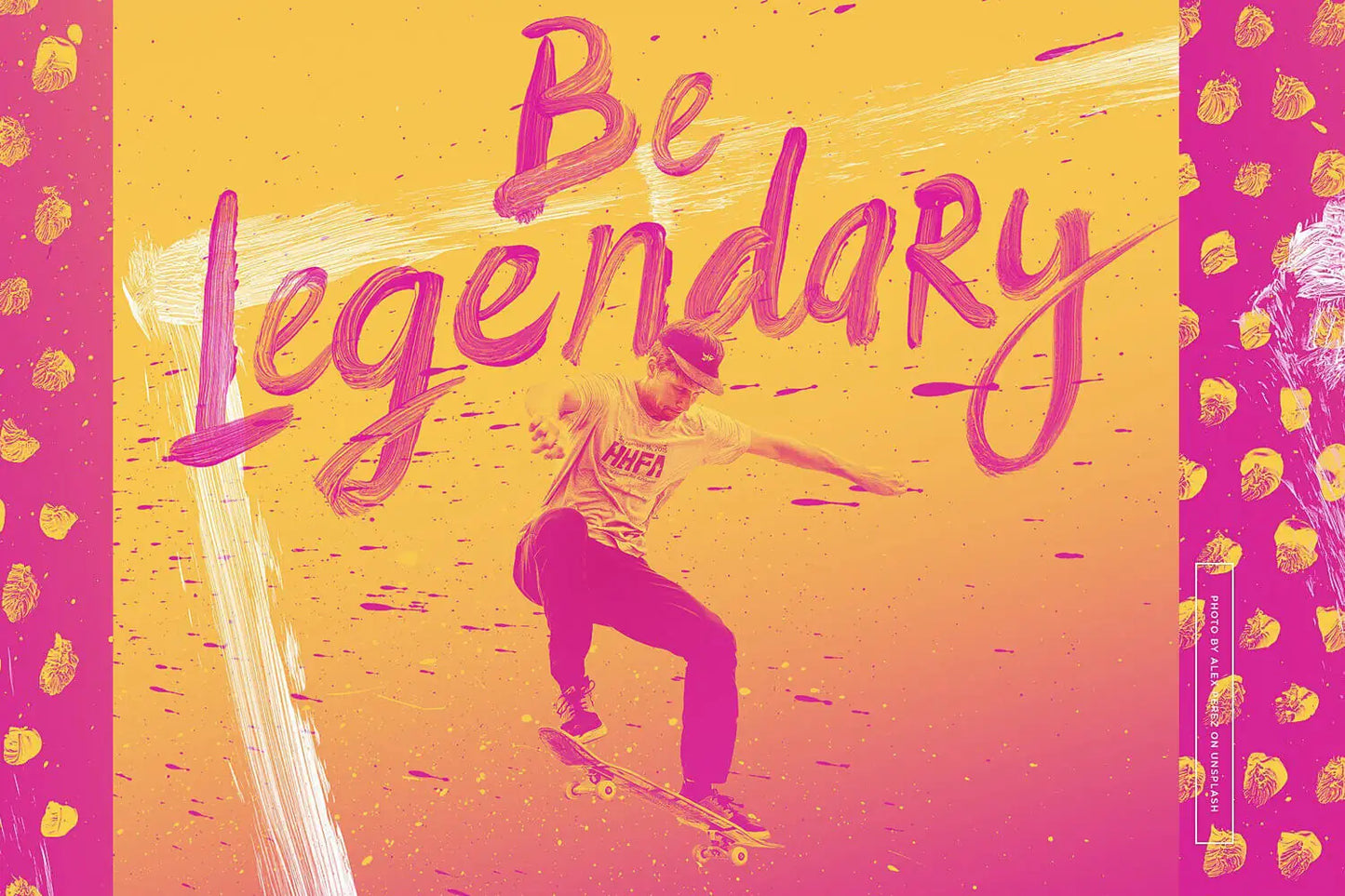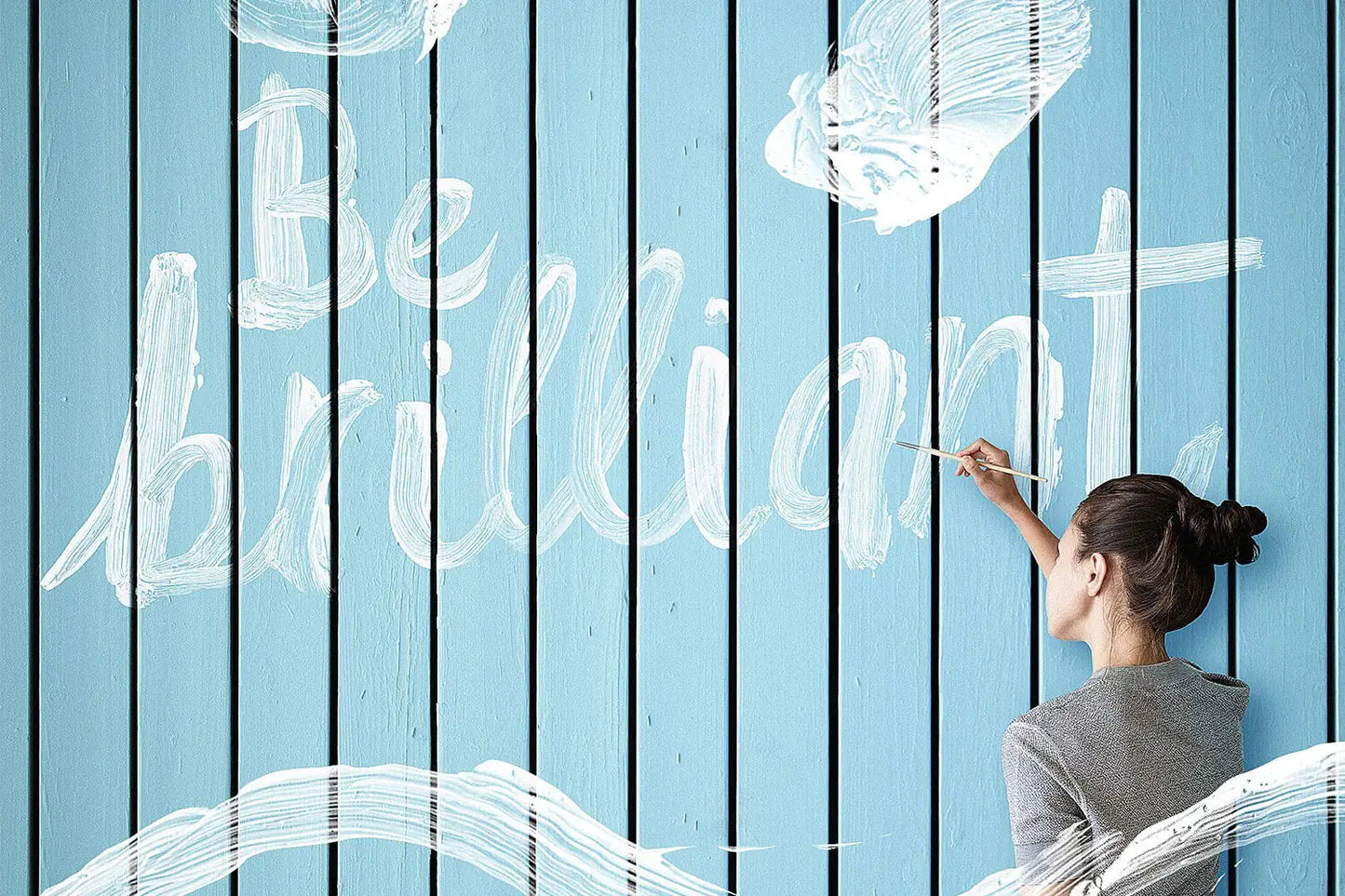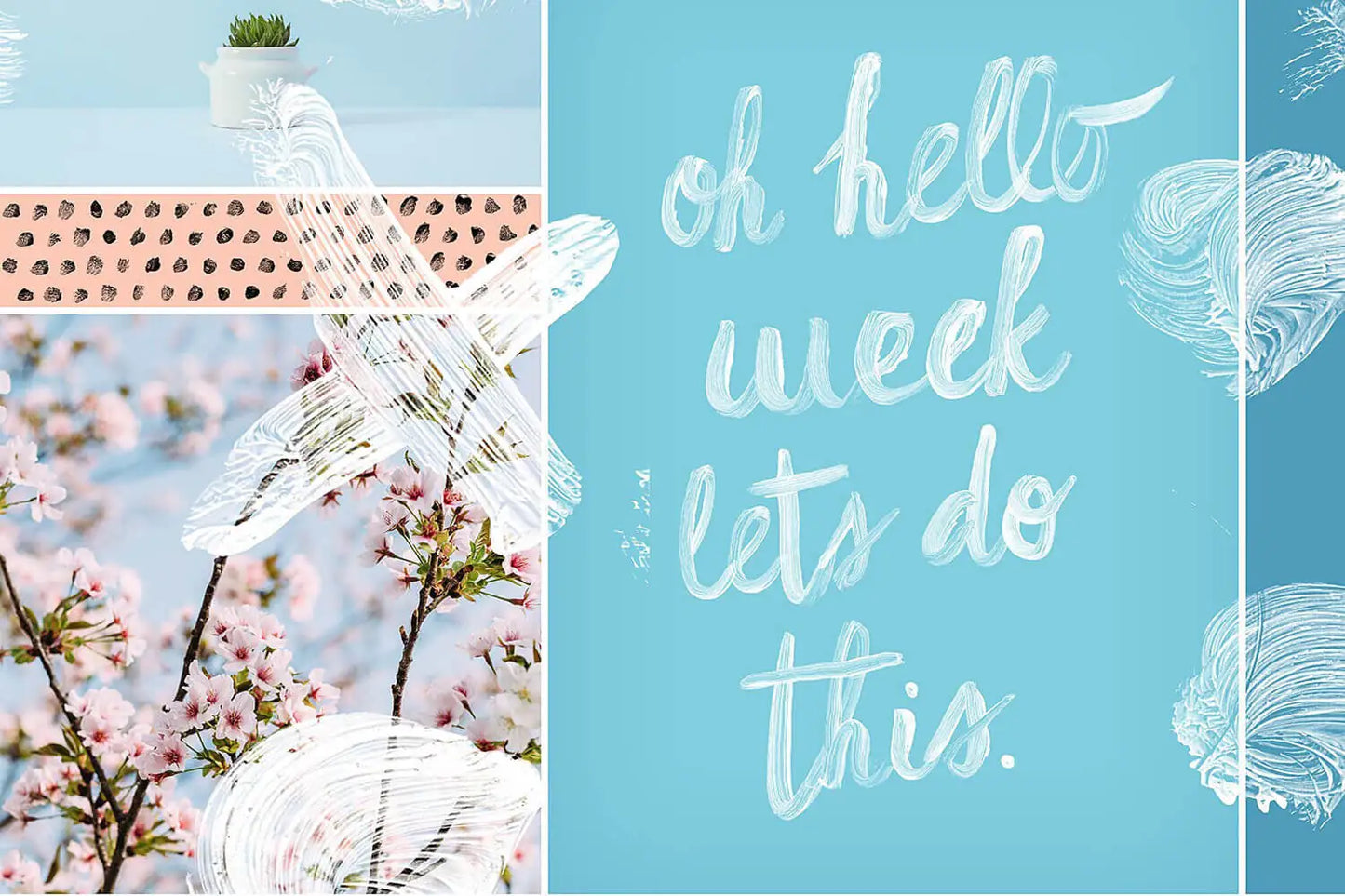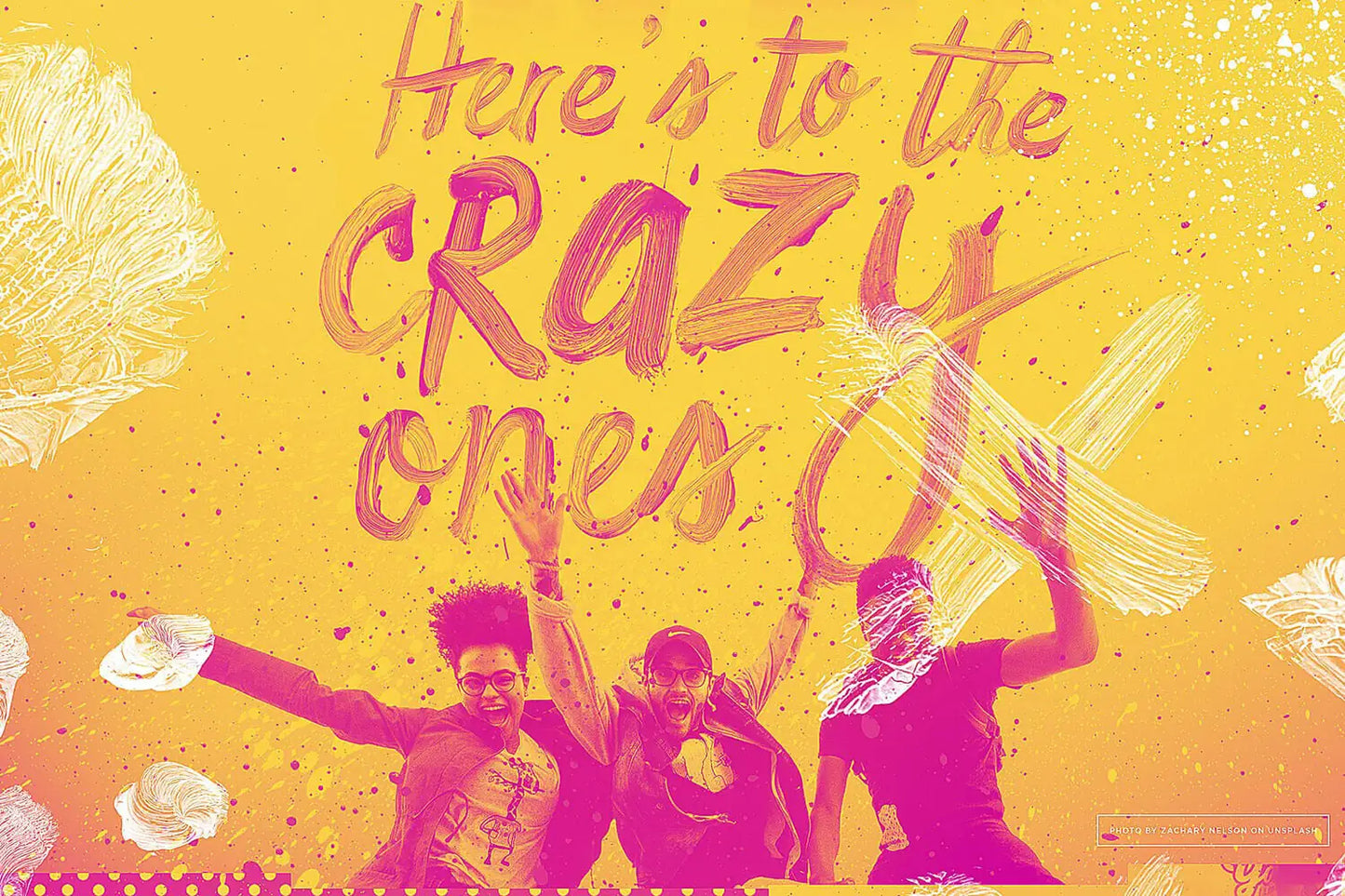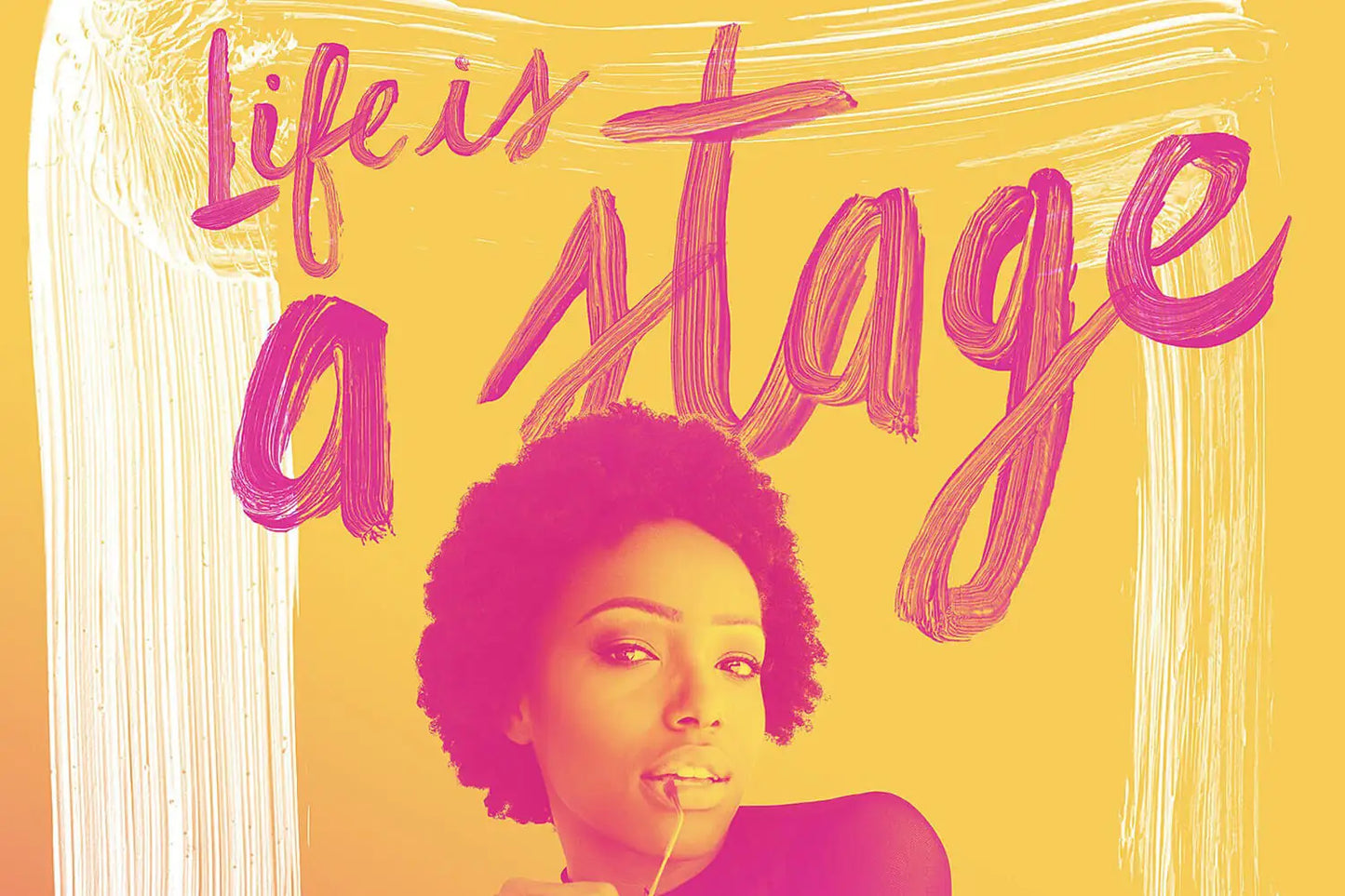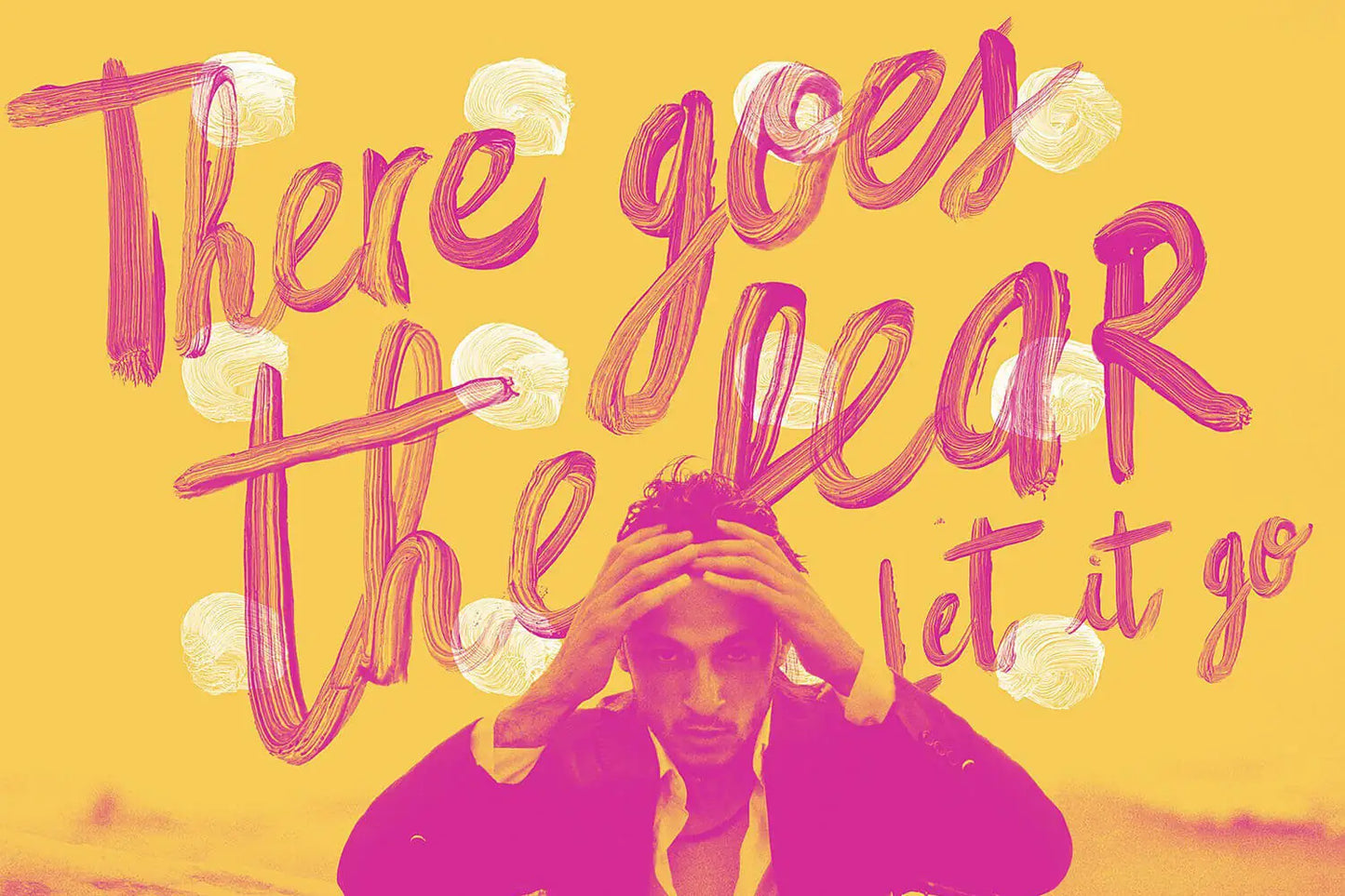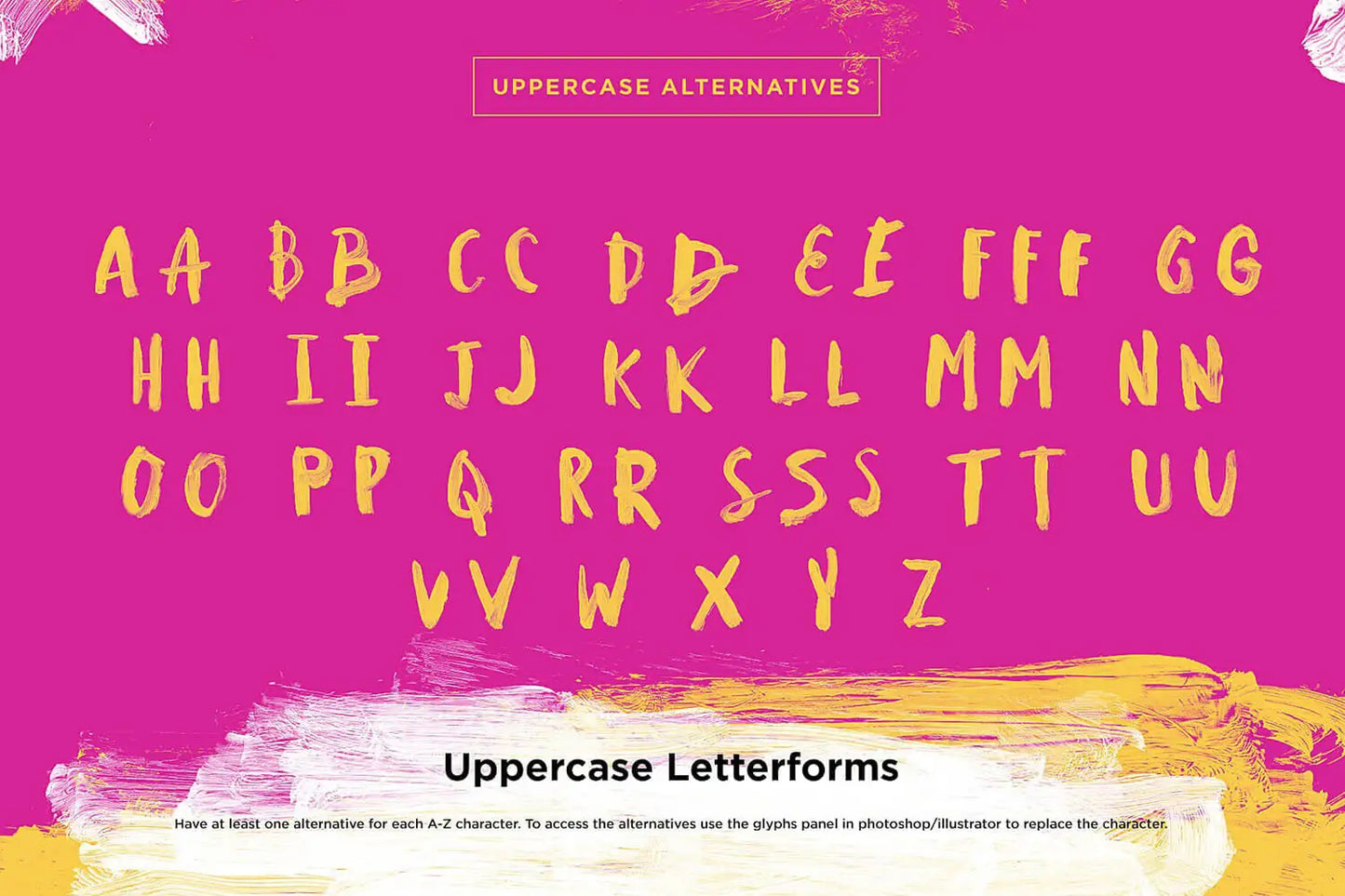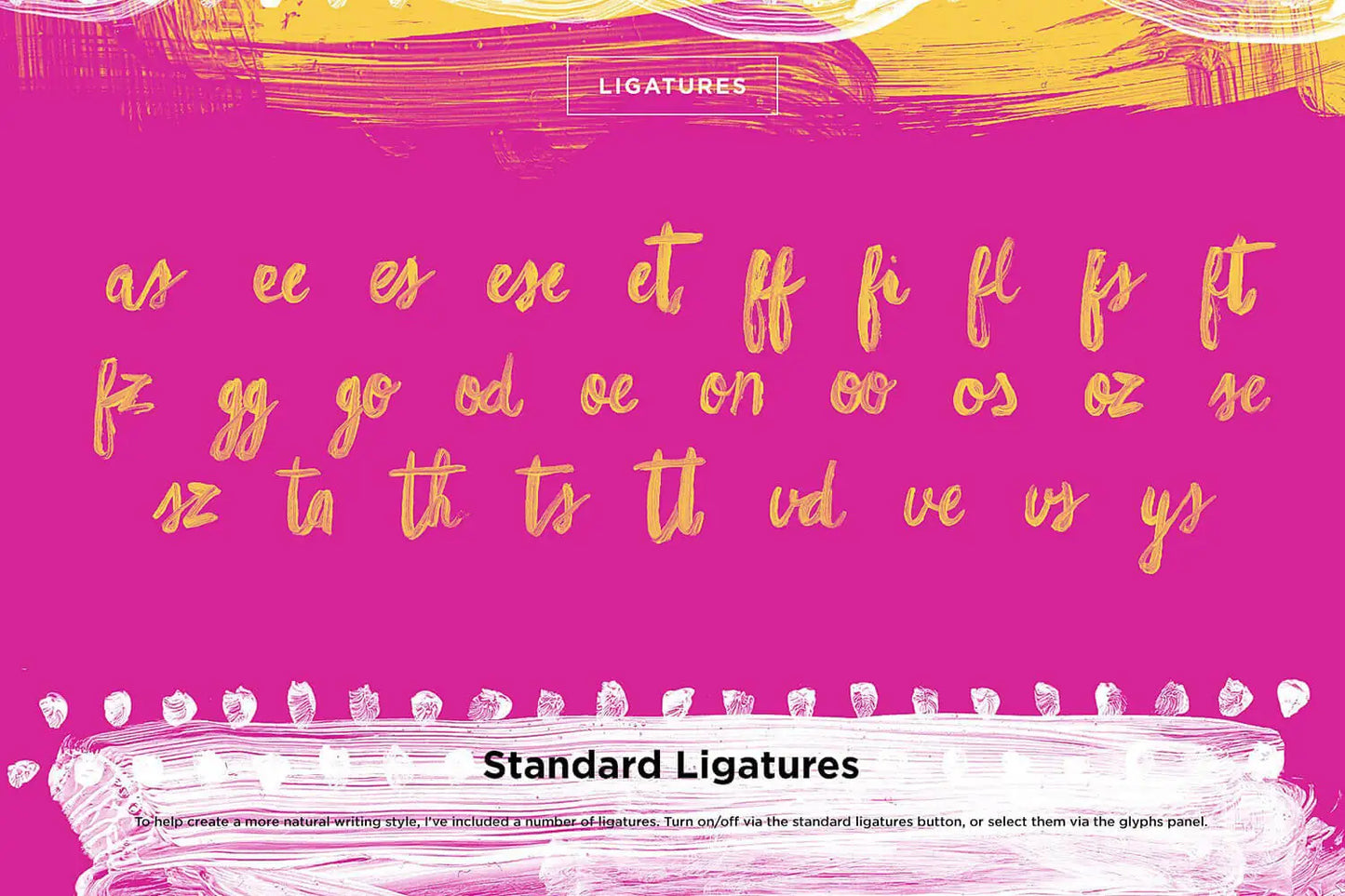
About Hello Monday SVG Font
Hello Monday is a rebellious OpenType-SVG color bitmap font that breaks the mold. It's not your typical, cookie-cutter typeface; it's born from real paint, featuring a bold, expressive brushstroke style with a distinct urban edge.
With an urban swagger, Hello Monday exudes punch, energy, and a hipster vibe, all laced with a touch of carefree rebellion. Its rough edges are part of its charm, and you can't tame this font's wild side.
Whether it's magazine designs, posters, invitations, book covers, or any creative project craving a rebellious and expressive touch, Hello Monday is here to infuse unapologetic coolness into your work.
Hello Monday Alternative Characters
Hello Monday boasts a plethora of alternative characters for both uppercase and lowercase letters. Experimenting with these alternatives not only adds flair but also reduces repetition in your text.
Hello Monday Transparency
Hello Monday features full transparency. To achieve a bolder look, simply duplicate your type layers in Photoshop.
If Hello Monday font were a celebrity
Just as Joaquin Phoenix is known for his intense and non-conformist acting roles, the Hello Monday font is recognized for its bold and striking design, challenging the conventional norms of fonts.